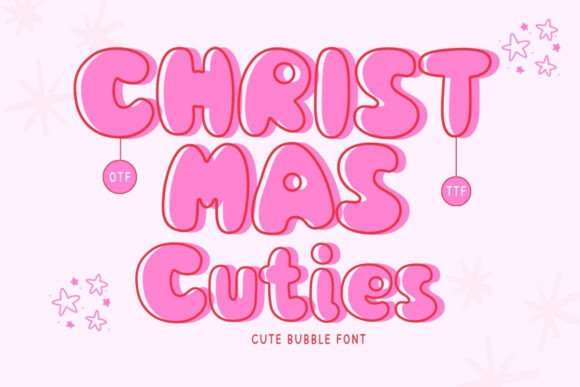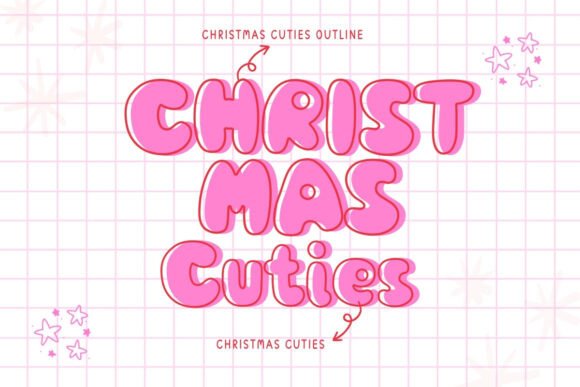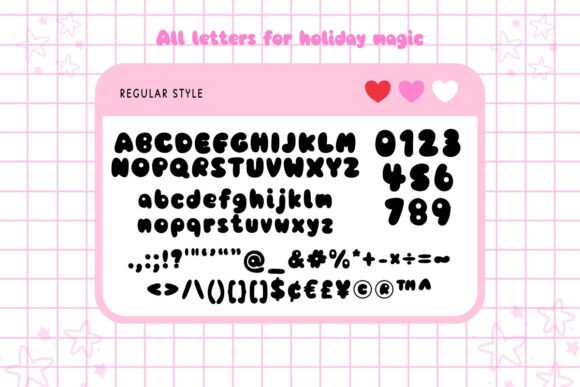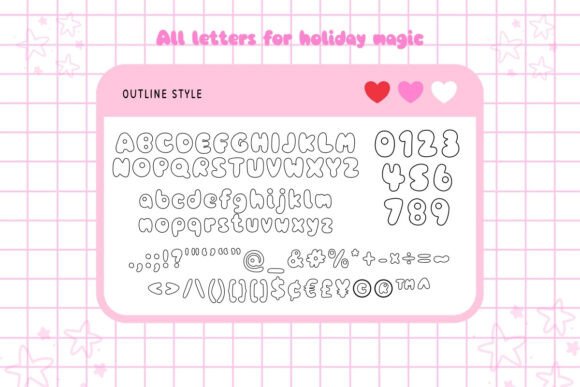
Christmas Cuties Font
About the Christmas Cuties Font
The wait is over! The incredible Christmas Cuties Font is now available for your design toolkit. Christmas Cuties Font and Christmas Cuties Outline Font
Add a touch of cuteness to your holiday projects with the “Christmas Cuties” font! This adorable bubble font is perfect for nursery designs, kids’ holiday crafts, and Christmas-themed creations. With its playful and festive style, “Christmas Cuties” is great for cards, decorations, and more. Designed with versatility in mind, this font comes in OTF and TTF formats and is ideal for bringing joy and charm to any seasonal design.